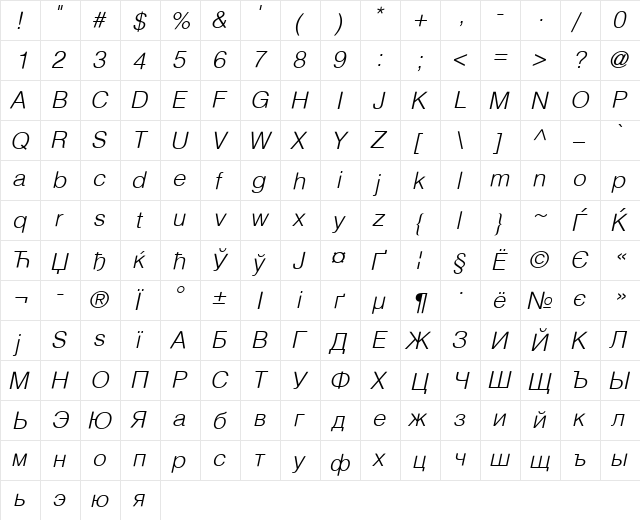
HeliosLight Regular
Design Context for HeliosLight Typeface
HeliosLight takes a measured approach to typography — its balanced proportions and neutral character make it a reliable workhorse for both digital and print work. The delicate stroke weight brings airiness and refinement to layouts.